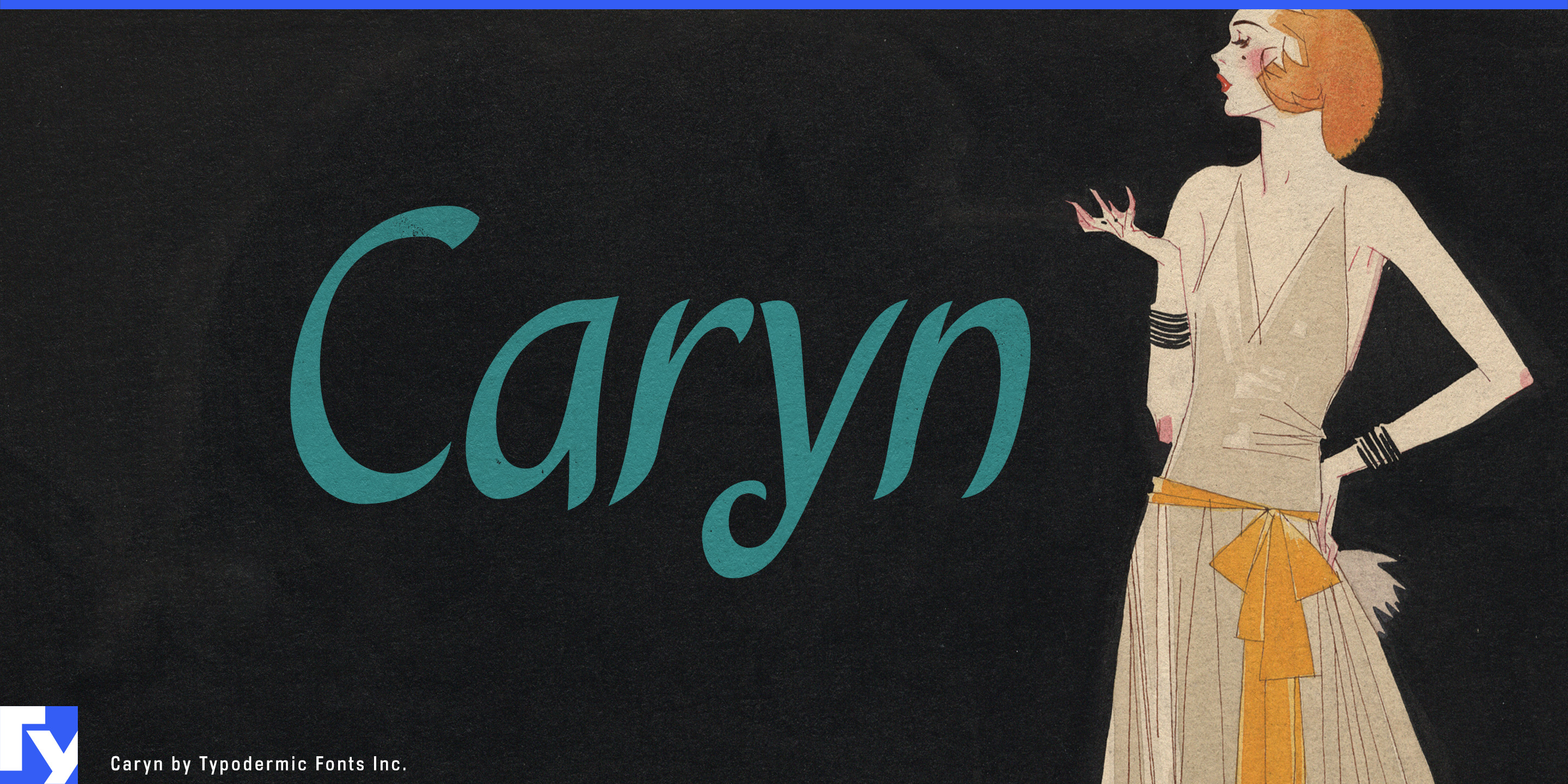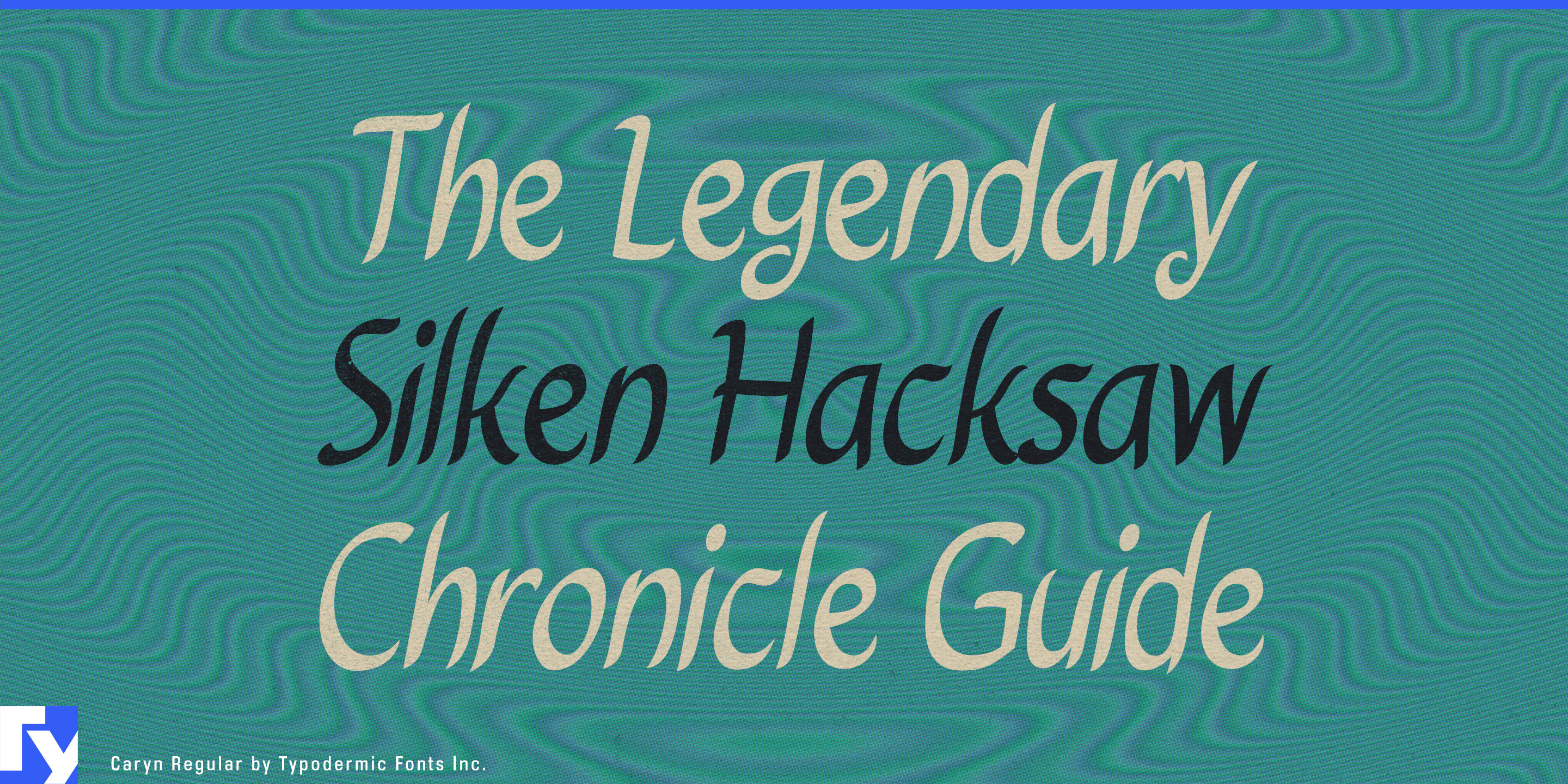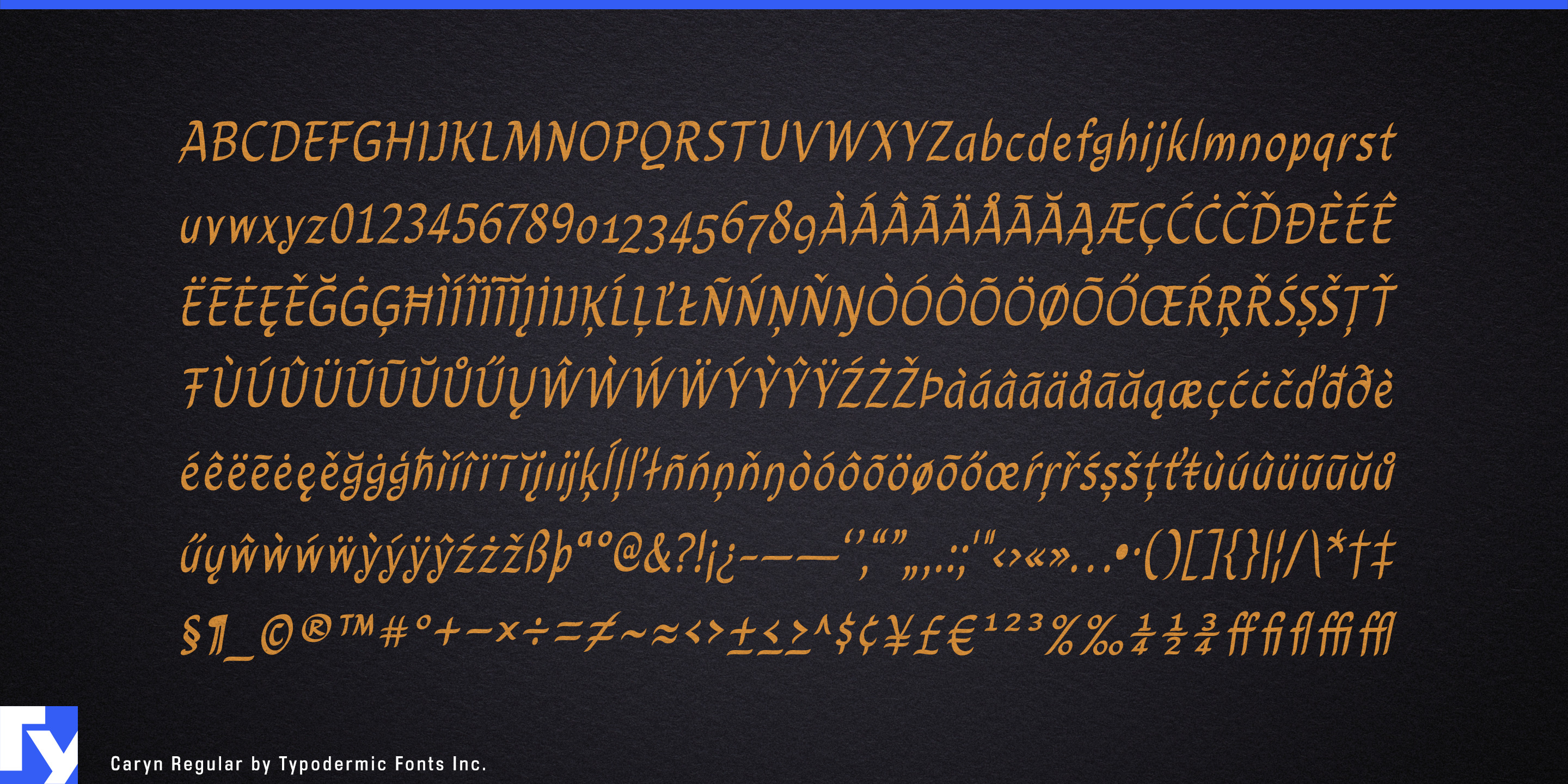
Caryn
Polished script fonts can sometimes be too accomplished. A family recipe, handwritten food label, or cook’s note may call for something made with care, but flawless flourishes and practiced calligraphy can make the result feel more formal than the subject. Caryn occupies a less common space: the writing looks as though somebody wanted very much to make the words beautiful, even if they had never quite mastered the pen.
Its rounded strokes, uneven rhythm, open counters, and calligraphic gestures show intention without virtuosity. The letters are neither deliberately sloppy nor artificially distressed; their irregularities feel carefully attempted rather than professionally perfected.
Family-recipe food products are an especially natural fit. Pasta sauces, preserves, pickles, baking mixes, biscuits, granola, soups, condiments, and regional pantry products can use Caryn for recipe names, flavors, founder names, serving suggestions, or short annotations while a conventional serif or sans handles ingredients and formal brand information. On a sauce jar or preserve label, Caryn can suggest the handwriting on a recipe card without forcing the whole package to imitate an old kitchen notebook.
Cookbook and recipe publishing can use the same quality for recipe names, cook’s notes, substitutions, chapter openers, margin annotations, and ingredient callouts. Family-recipe collections, regional cookbooks, baking books, preserving guides, and weeknight-cooking titles are particularly suitable because Caryn’s imperfect calligraphic effort fits the subject better than either polished formal script or deliberately messy handwriting.
Meal kits and cooking services provide a contemporary extension. Recipe subscriptions, prepared-meal boxes, cooking-school kits, and appliance-linked recipe services can use Caryn for dish names, serving suggestions, substitutions, and short directional notes across recipe cards, packaging, emails, and app graphics.
Bakeries, delicatessens, prepared-food counters, specialty grocers, and food halls can use Caryn for bread names, pastry varieties, sandwich specials, prepared-dish labels, shelf cards, takeaway stickers, and seasonal counter graphics. Producer packaging for preserves, honey, dairy products, mushrooms, herbs, and regional food boxes can use it for varieties, harvest notes, batch descriptions, serving ideas, and short package messages.
Caryn looks like somebody tried their best. When a project needs handwriting that suggests care without expertise, it offers an earnest alternative to polished professional calligraphy.